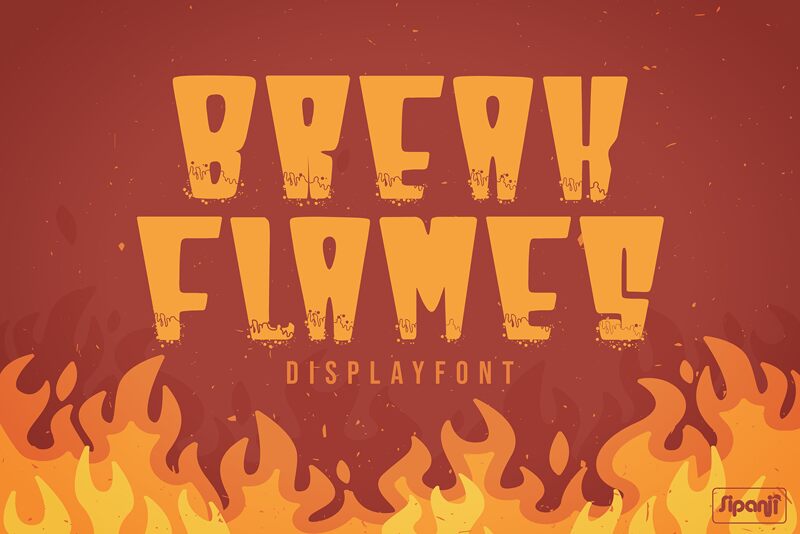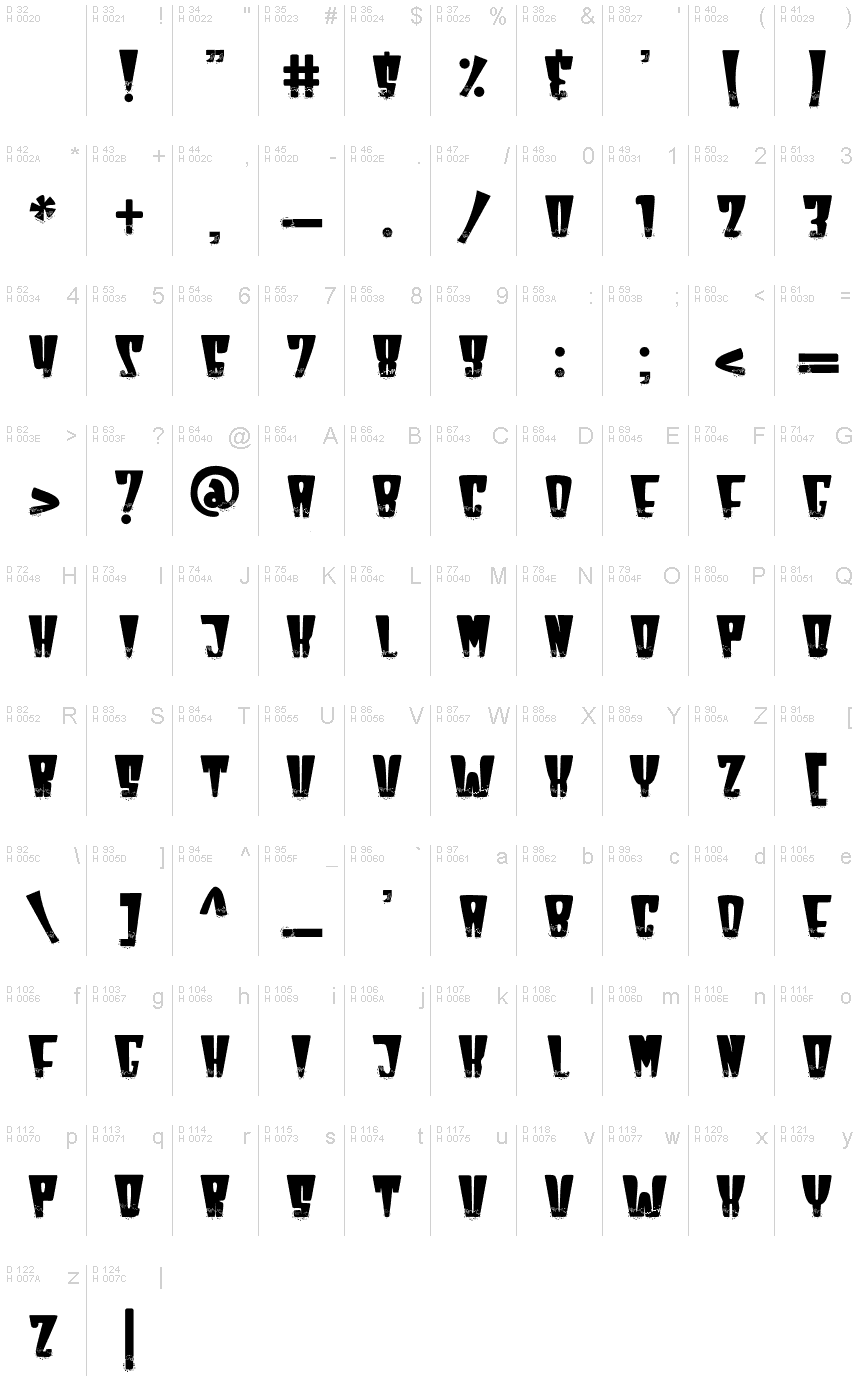
Break Flames
Break Flames is a bold and modern display font with a unique twist. This display font is the perfect fit for all of your logos, branding, social media, and crafty DIY projects.